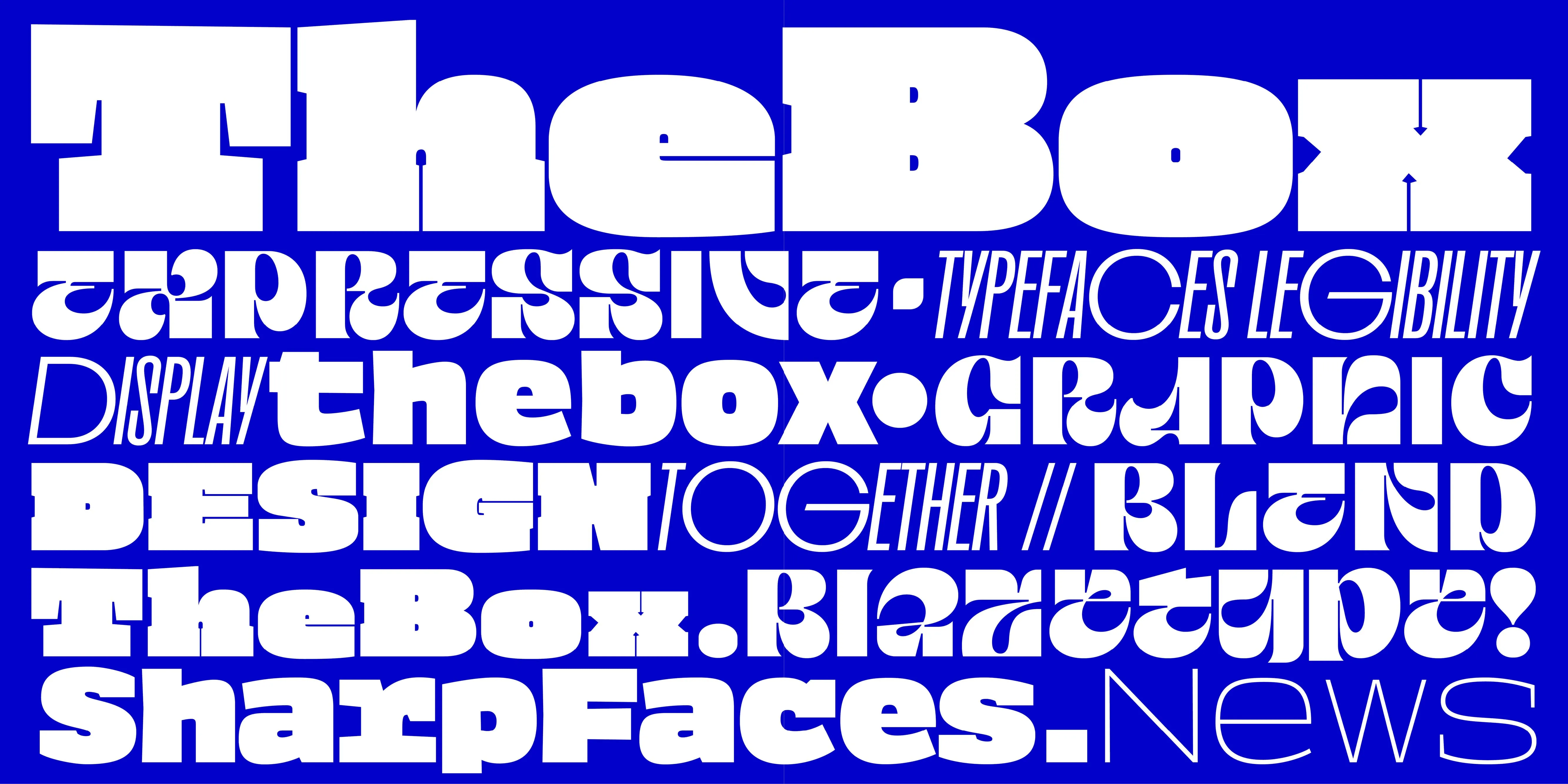
A new font venture!
Introduction
The box is a new space where fonts, sometimes display, sometimes experimental, come to life. Through this new projet we try to reveal to the world the awesome work and sketches some designers tend to keep in their cupboards and aim to provide the most suitable and high quality font with those. We’ve been working on this project for the past year and are proud to announce that we’ll be able to provide you with new releases on a (kind of) monthly basis.
For the past year we’ve worked with amazing designers, and we can’t wait to show you what they’ve been up to (even though we’ve already shown a bit… too impatient… ) from Antonio D'Elisiis’ darkest ever slab face, Duc Cao’s most insane outline expressive letterforms, Franziska Weitergruber’s killing the rhythmic in any of your words, Raphaël Lefeuvre wondering how everything could fit in on and only box, Helene Krieger’s exploration of historical handwritten letters for a contemporary use, Valerio Monopoli breaking the grounds between style and ductus, Nicolas Dupuis seeking for the darkest letter he can paint, draw, cut out.
Last but not least John David Maza will get the ball rolling with his type construction built through the awareness of Philippines’ beautiful, yet threatened, giant clam: Taklobo!
And that’s only the tip of the iceberg, so many more amazing projects are in the making but we can’t say too much for now